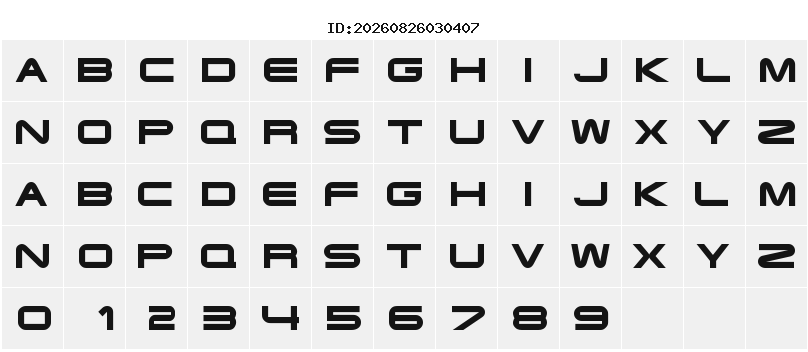
Xoireqe Preview
• Font Name: Xoireqe
• Full Font Name: Xoireqe
About Xoireqe.ttf
Xoireqe.ttf is a modern, elegant sans-serif font designed for ultimate readability and visual harmony. Perfect for branding, headlines, web design, and print materials.